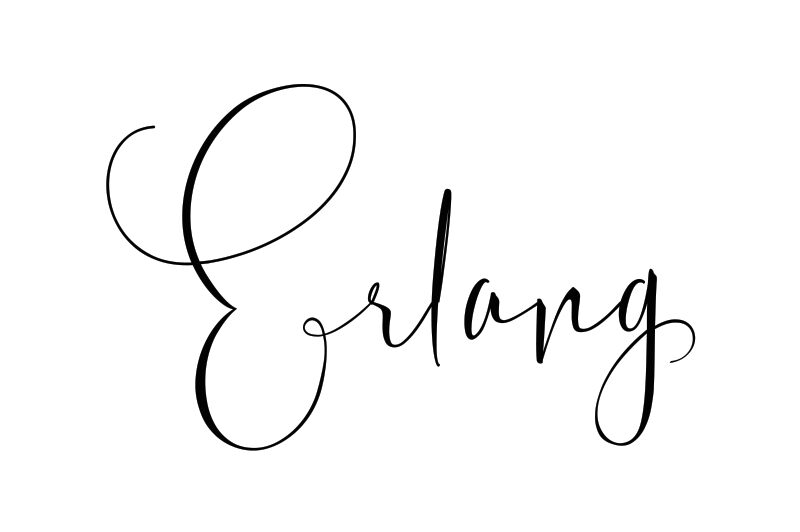
Erlang, the calligraphy extra-light font by Pollem Studio, is the perfect choice for bringing elegance and sophistication to your design projects. Its semi-condensed width allows for a sleek and modern look while maintaining its classic calligraphic style. This font is an excellent choice for wedding invitations, luxury branding, and editorial designs. Let Erlang's graceful flourishes and delicate strokes elevate your next project to new heights of refinement.